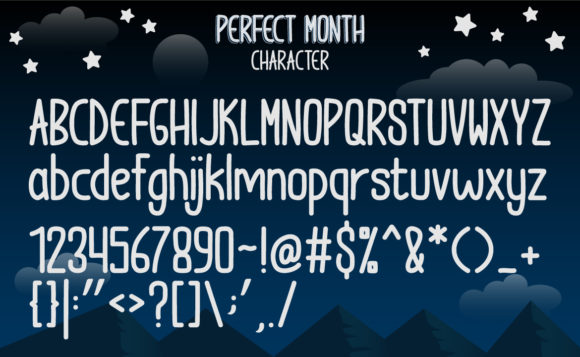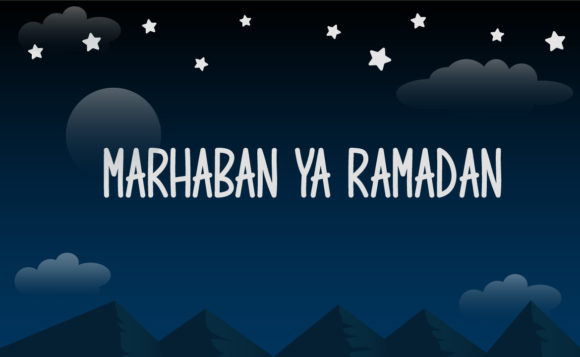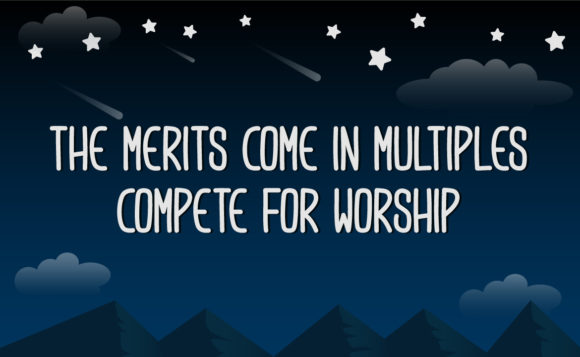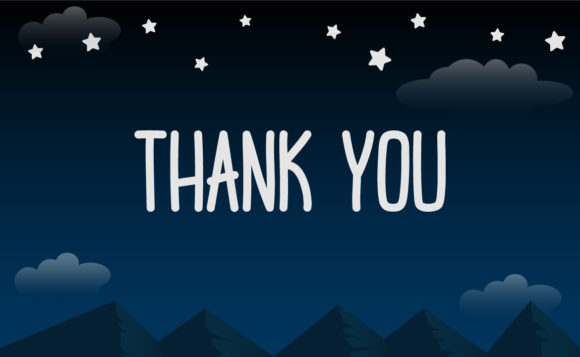
About Perfect Month Font
Perfect Month is a minimal and neat handwritten font. It can easily be matched to an incredibly large set of projects, so add it to your creative ideas and notice how it makes them stand out!